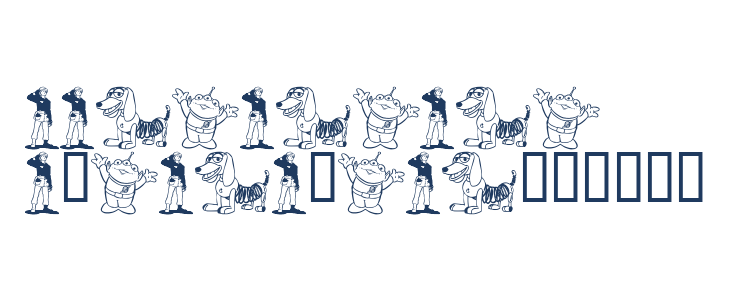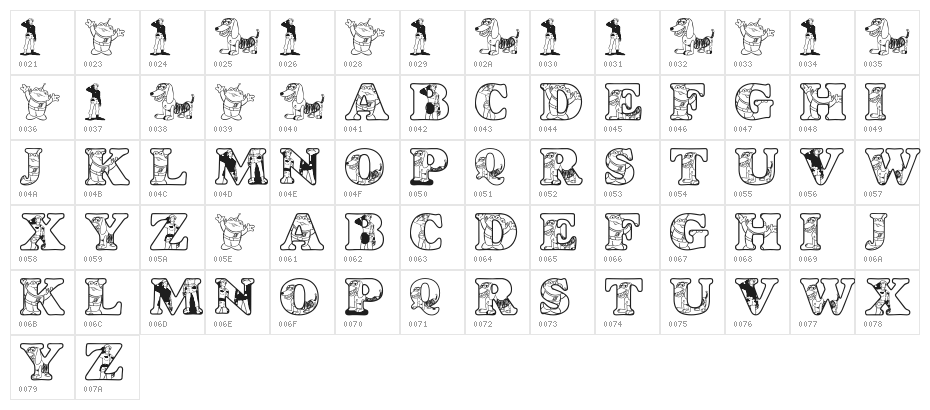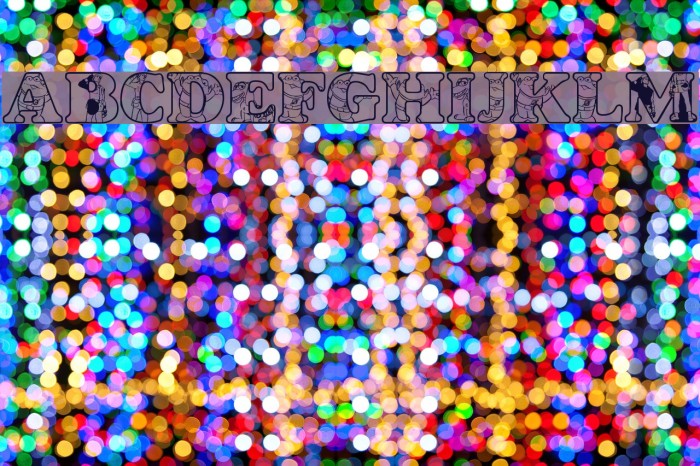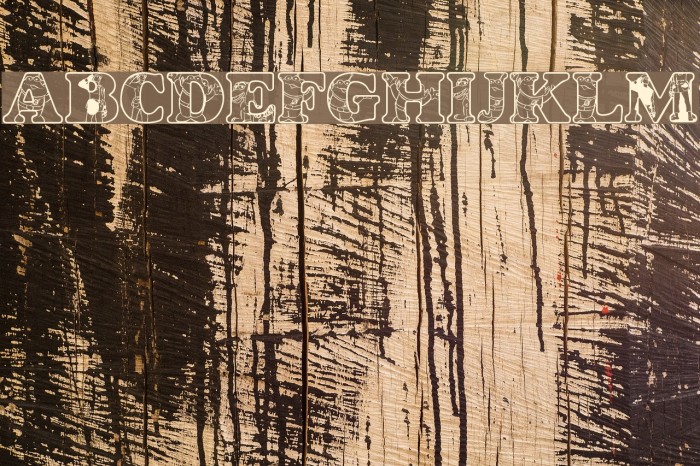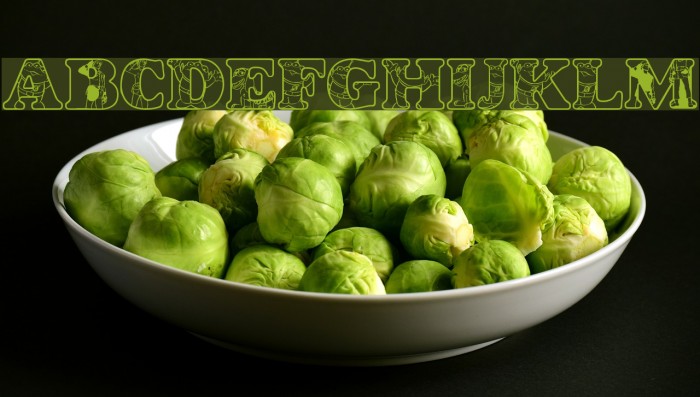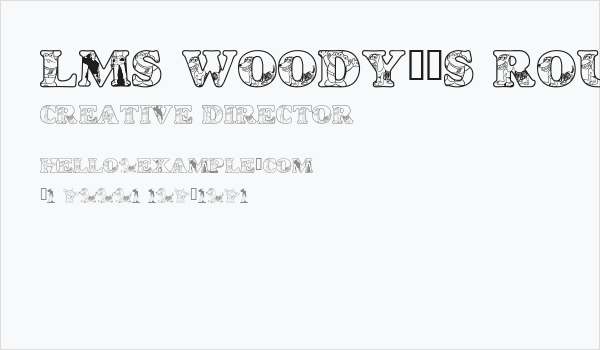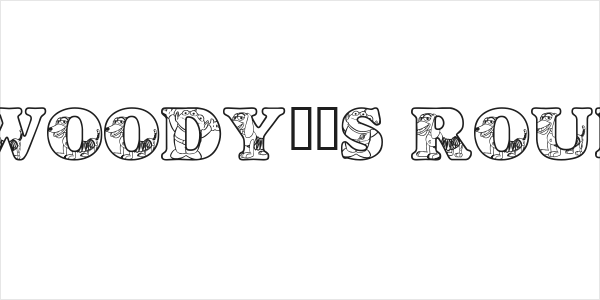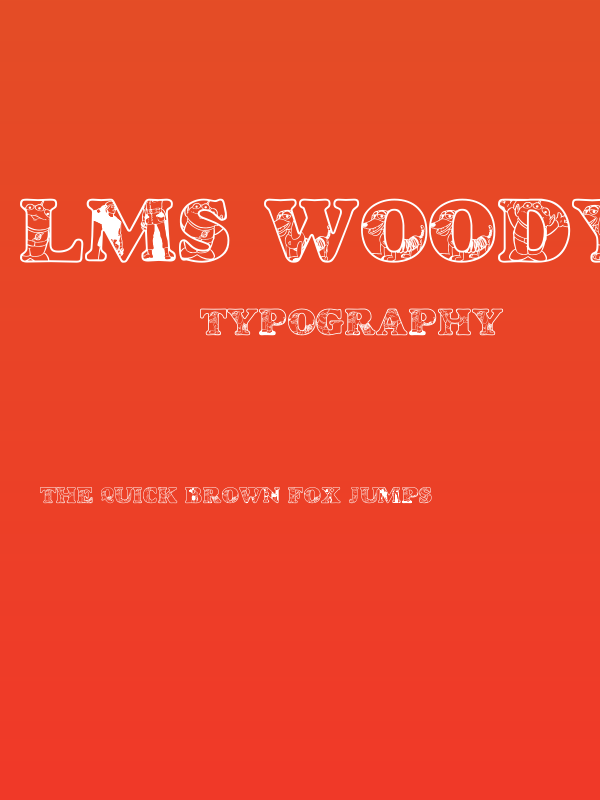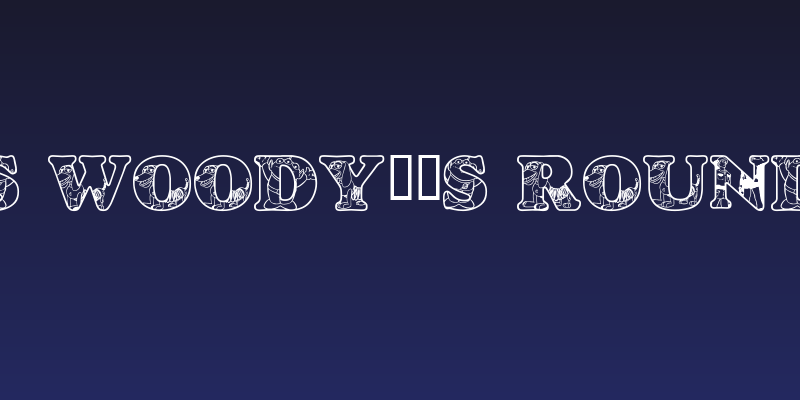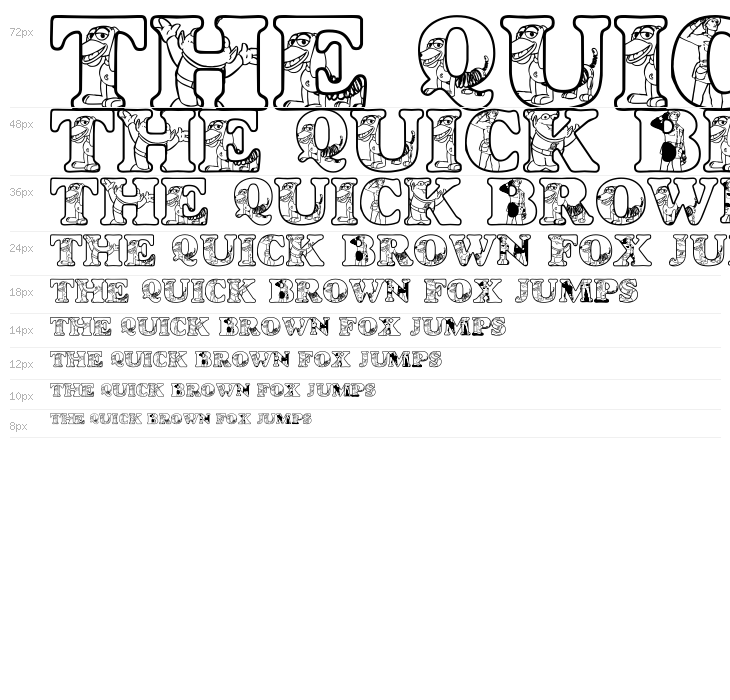
LMS Woody's Roundup Font
LMS Woody's Roundup Description
This playful and decorative font features characters filled with whimsical illustrations of cowboy-themed elements. Each letter is uniquely designed with intricate patterns that evoke a sense of fun and adventure. The bold, blocky structure of the letters is complemented by the detailed artwork within, making it a standout choice for projects that require a touch of creativity and imagination. The font's style is reminiscent of a classic Western theme, with a modern twist that makes it suitable for a variety of applications. Its distinctive appearance ensures that it captures attention and adds a unique flair to any design.
| Proposed Projects | Ideal for children's book covers, themed party invitations, playful branding, and merchandise related to Western or cowboy themes. |